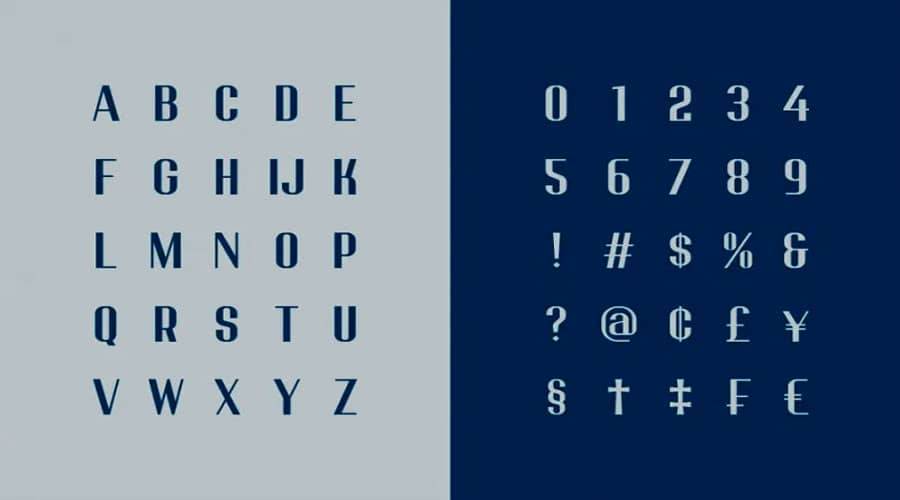
Mason Sans Serif is a sans-serif typeface by Fadiel-muhammad, released on December 24, 2019. It has medium contrast and a contemporary look that puts clarity and readability first. Designers often use it for magazine titles, logos, banners and website headers.
Mason has medium contrast between its thick and thin strokes. That balance keeps it easy to read and still works well in short headlines.
The lowercase letters have a distinctive look, which can help a logo or brand name stand out. Use the uppercase letters for a bolder, more formal line.
DesignerFadiel-muhammad
For a logo or banner, set the name in this font and add a simple icon or shape. Keep any extra text in a second, plain sans serif font so the main name stands out.